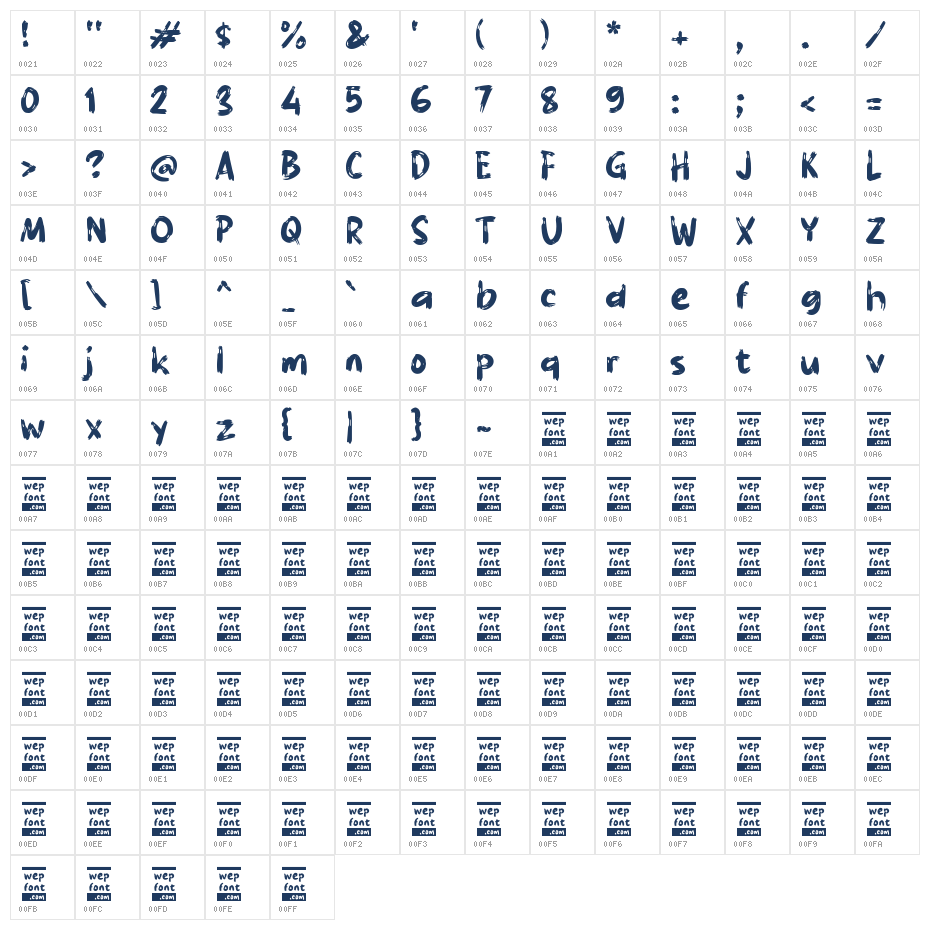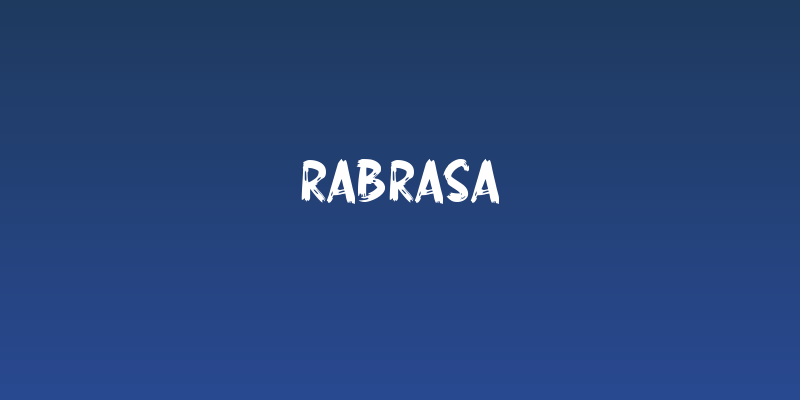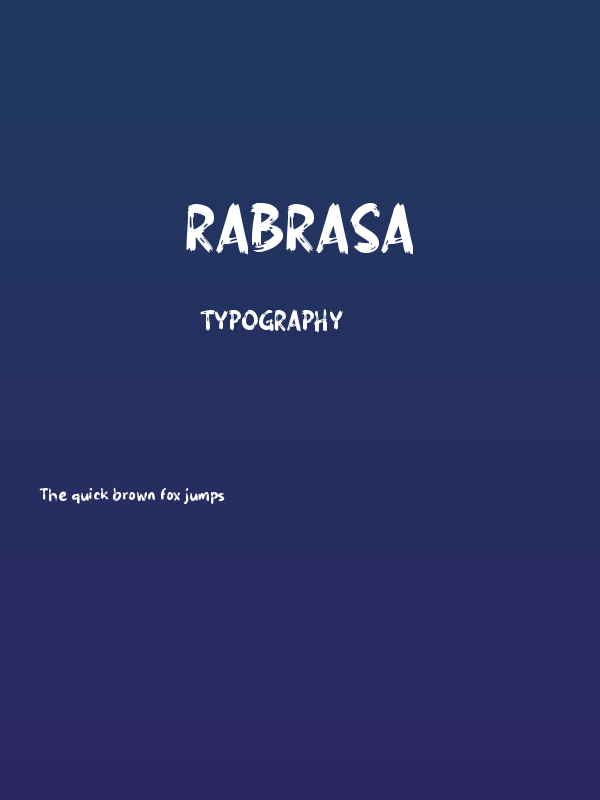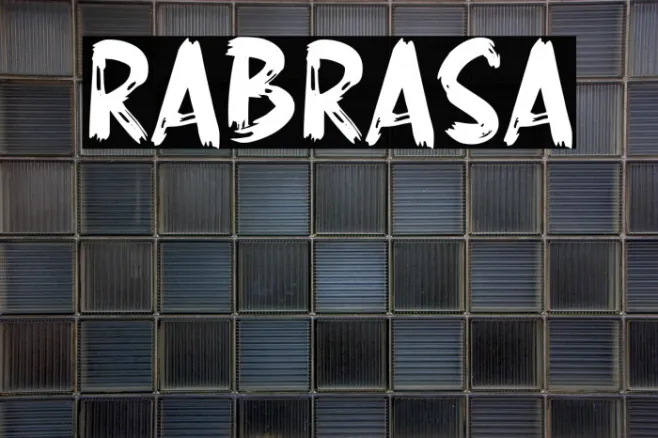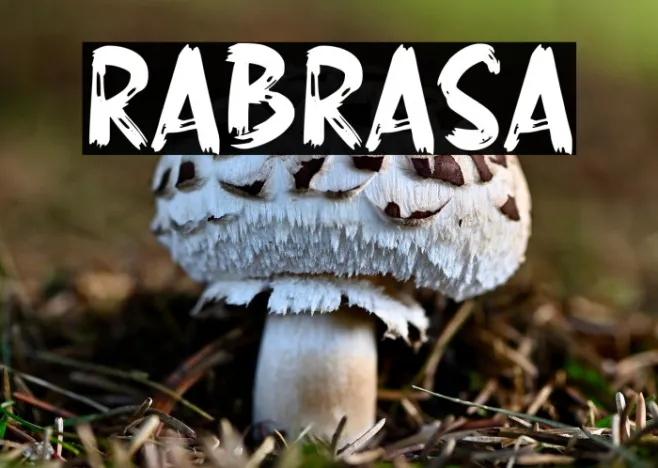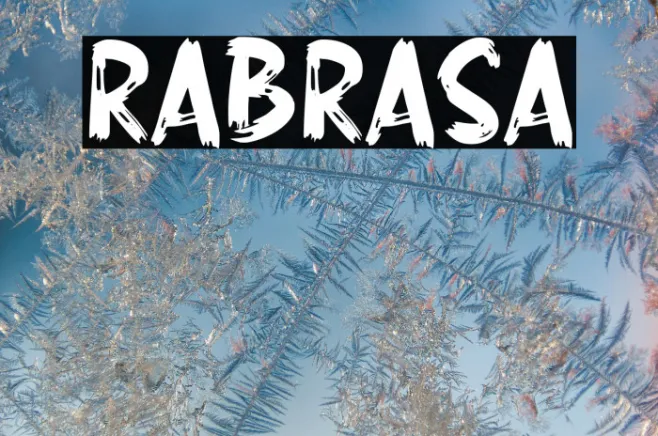
RABRASA Font
RABRASA Description
A playful, brush-stroke style font with a casual, handwritten appearance. The characters have irregular edges and a dynamic, energetic feel.
| Use Case | Headlines, Logos, Invitations, Creative branding |